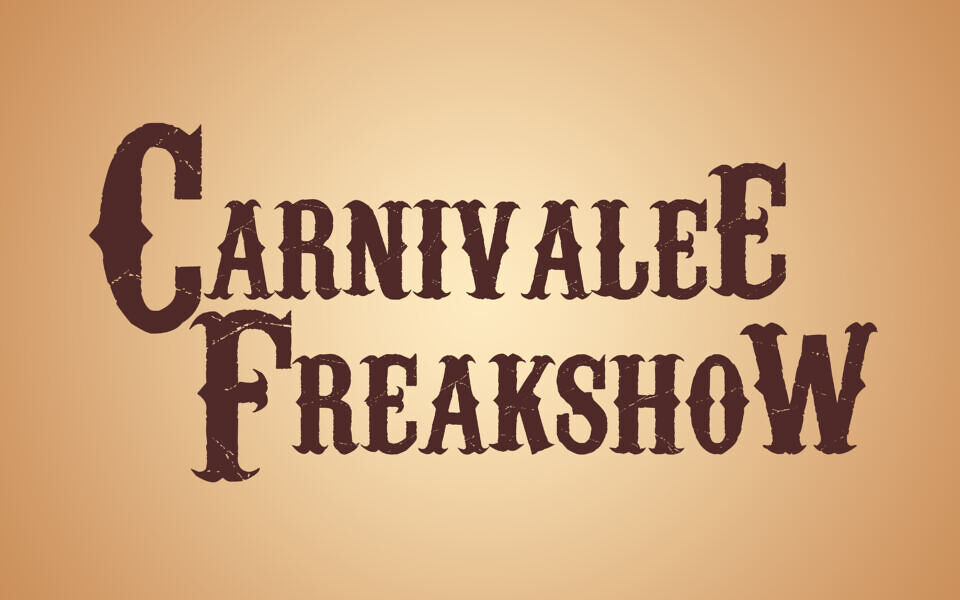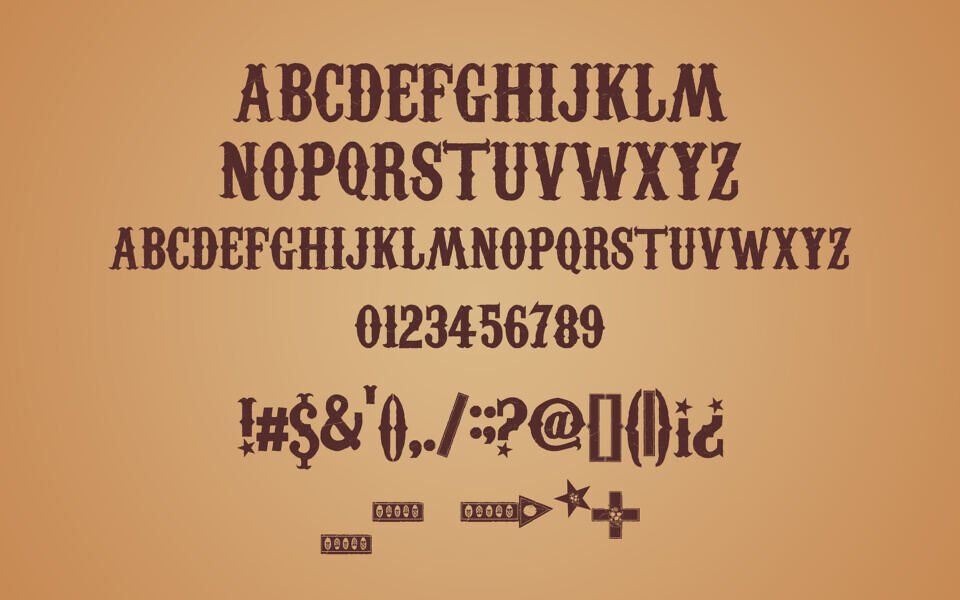
Carnivalee Freakshow is a high-impact, display typeface that perfectly captures the grit and glamour of 19th-century American circus posters. Featuring heavy, western-inspired serifs and an aged, slightly distressed aesthetic, it evokes an immediate sense of vintage spectacle.
Its bold, condensed letterforms are designed for headlines that demand attention, making it a go-to choice for carnival themes, steampunk projects, or old-fashioned branding. With its distinct Victorian flair, this font transforms any text into a theatrical performance of historical charm.